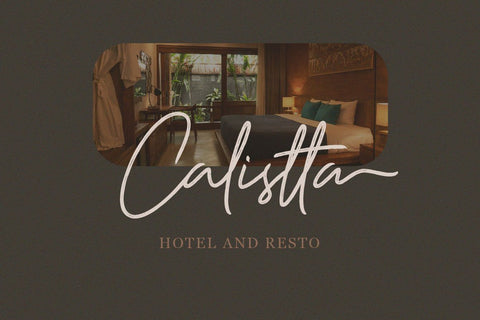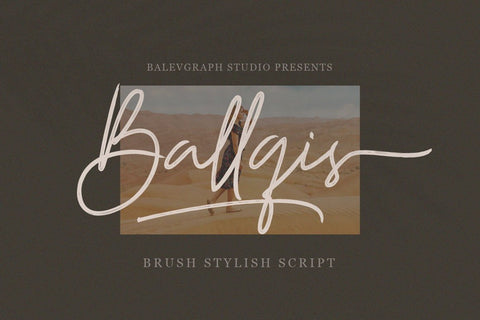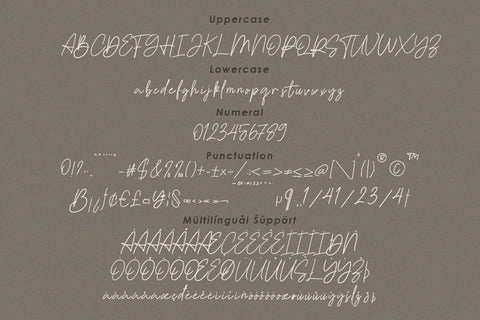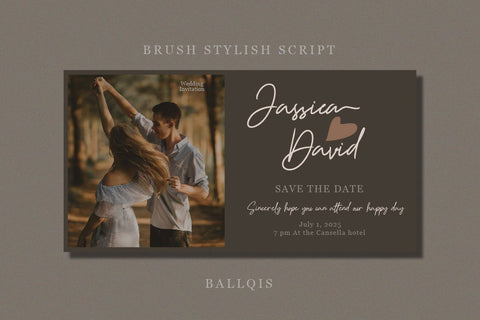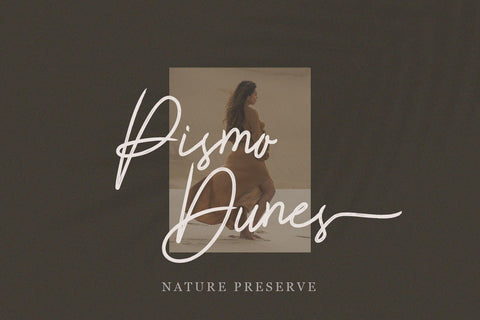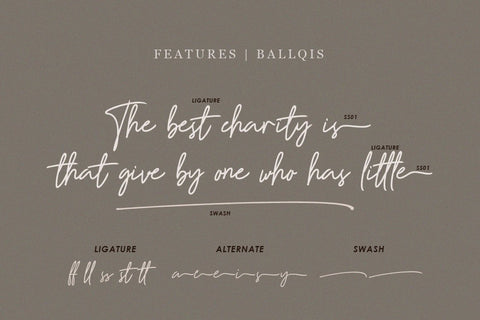
BalIqis Script Font
Ballqis is a flowing, stylish and neat handwritten font. This versatile script font has a wide spectrum of applications ranging from greeting cards to headlines and is guaranteed to add a romantic feel to your next project.
- - Uppercase, Lowercase, Numerals & Punctuations
- - Ligature & Alternate
- - Multilingual support